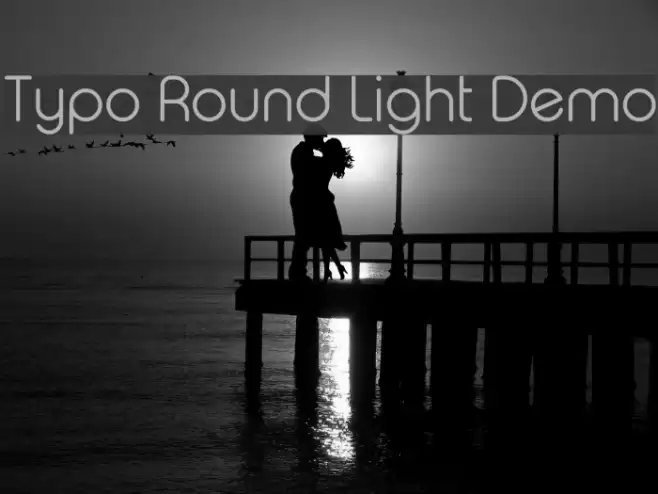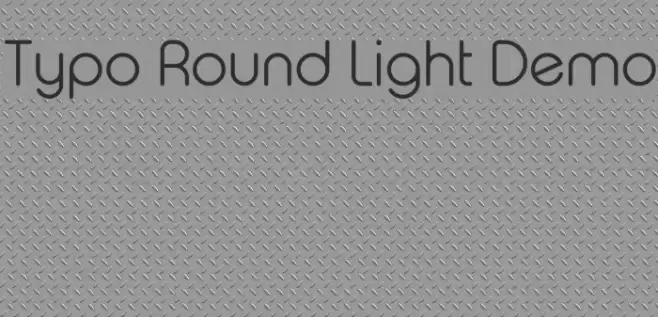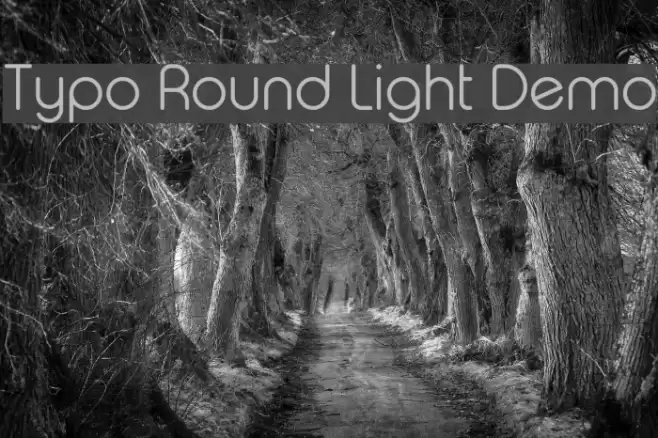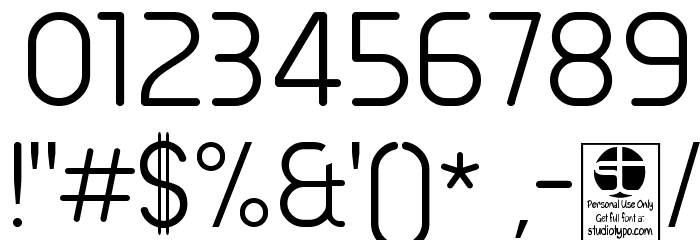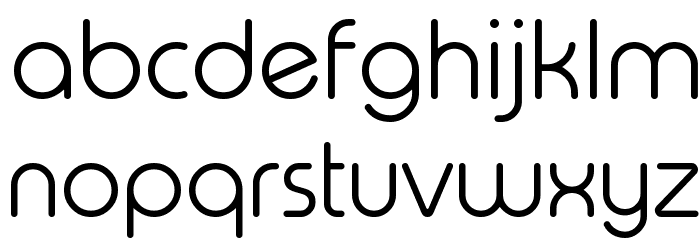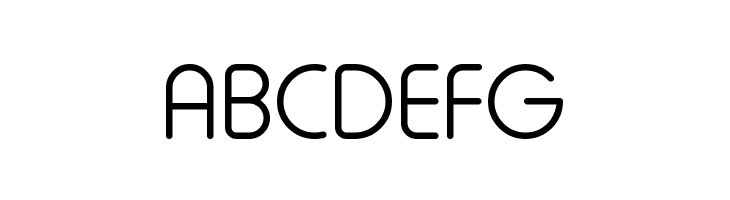
Typo Round Light Demo Font
Typo Round Light Demo Description
This font features a clean and modern design with rounded edges, giving it a friendly and approachable appearance. The characters are evenly spaced with a consistent stroke width, contributing to its legibility and simplicity. The uppercase and lowercase letters maintain a uniform style, while the numerals and special characters are designed to complement the overall aesthetic. Its geometric shapes and smooth curves make it suitable for a variety of design applications, emphasizing clarity and readability.
A modern, rounded font with clean lines and a friendly appearance from Uncategorized fonts.
- Proposed Projects: Ideal for branding, web design, user interfaces, and educational materials.